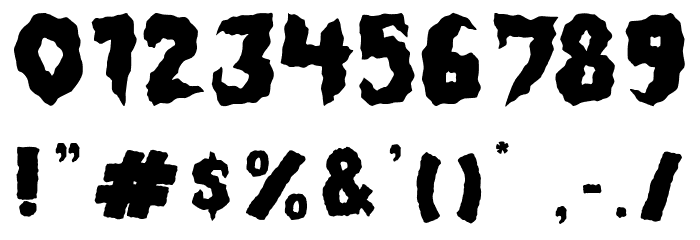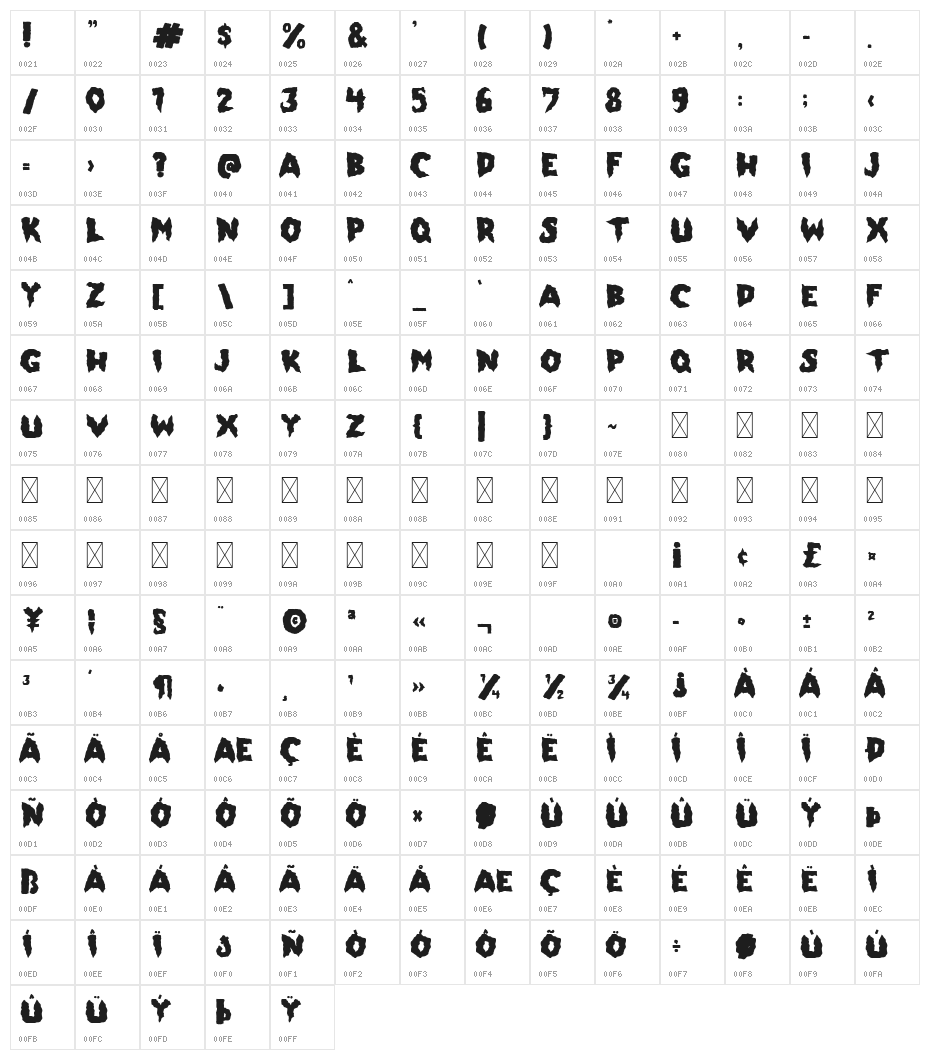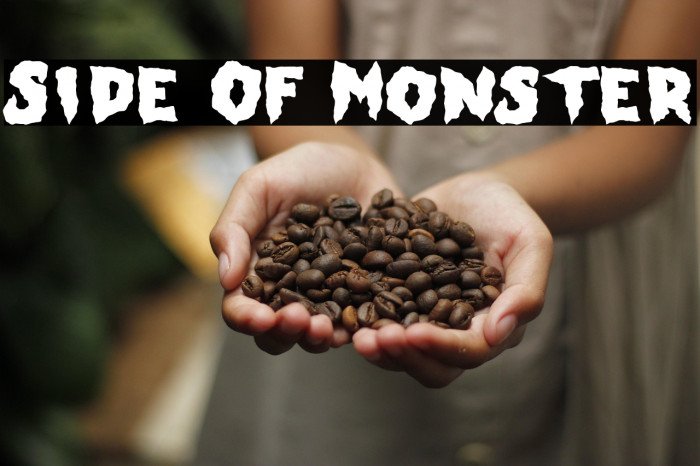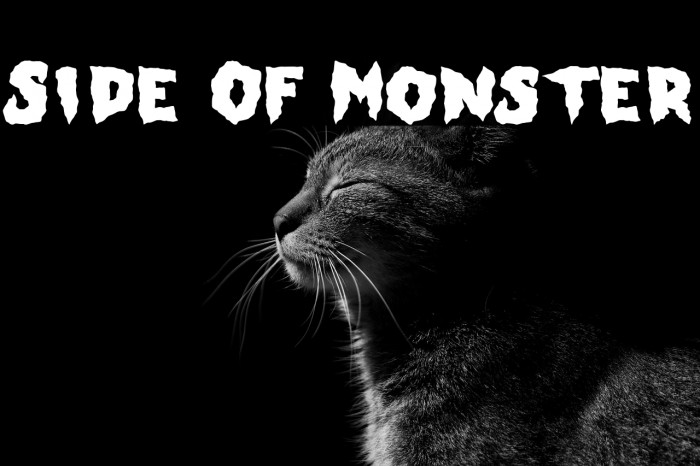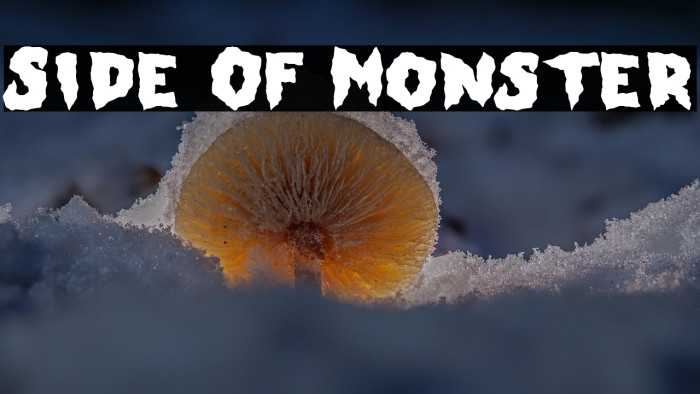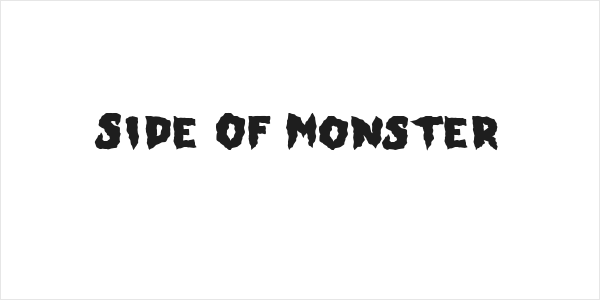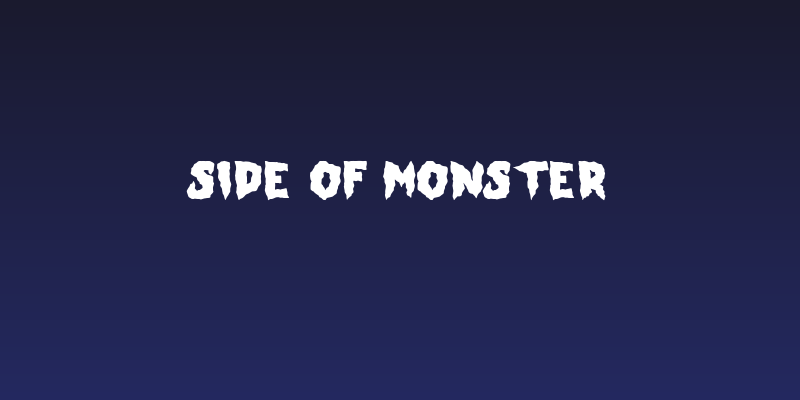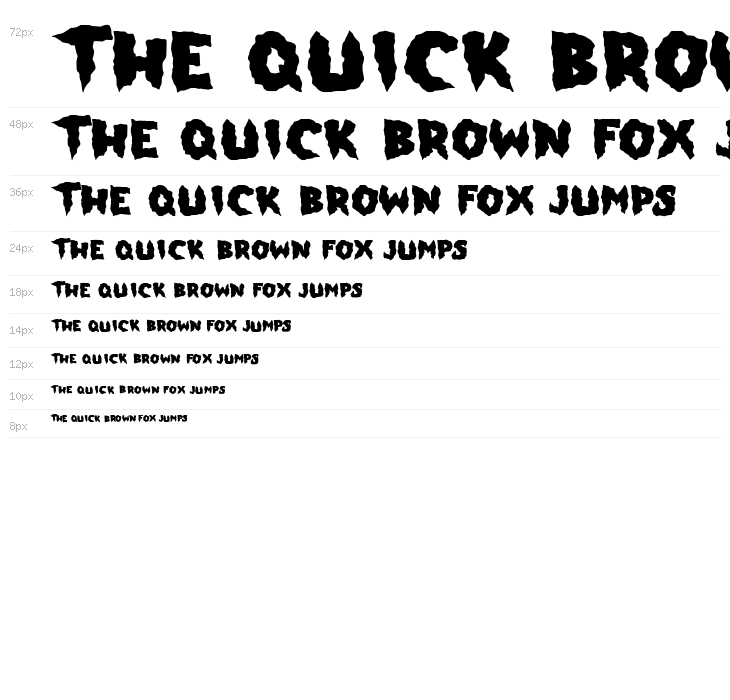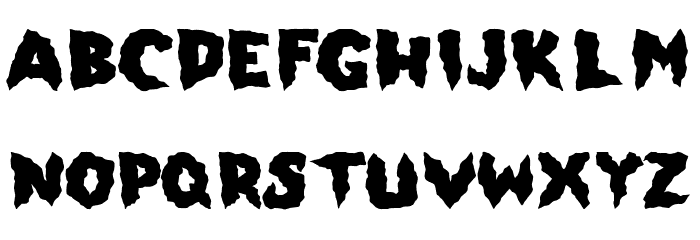
Side Of Monster Font
Side Of Monster Description
This font features a rugged, jagged style reminiscent of torn paper or monster claws, giving it a distinctly edgy and chaotic appearance. The characters are bold and irregular, with uneven edges that create a sense of movement and energy. This font is highly decorative, making it ideal for projects that require a dramatic and eye-catching look. Its unique design is perfect for themes related to horror, Halloween, or anything that needs a touch of the monstrous. The uppercase and lowercase letters maintain a consistent style, while the numbers and special characters complement the overall aesthetic.
| Proposed Projects | Ideal for Halloween posters, horror-themed events, video game titles, and edgy graphic designs. |